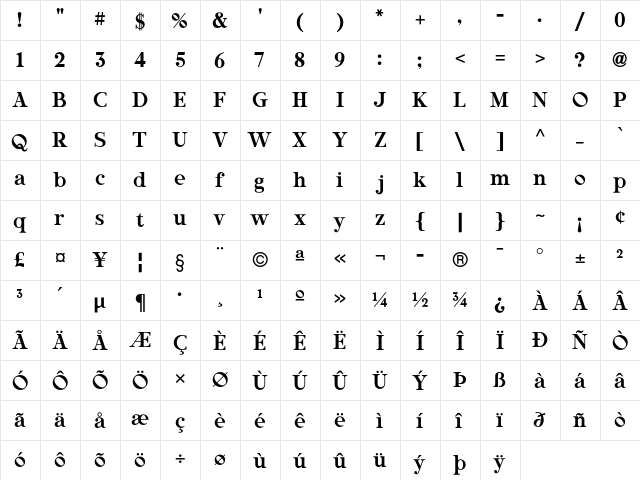
Anatomy Fill Regular
Design Context for Anatomy Fill Typeface
Anatomy Fill takes a measured approach to typography — its balanced proportions and neutral character make it a reliable workhorse for both digital and print work.
Pro Tip: Use Anatomy Fill in both headline and body roles to test its range before committing to a single application.